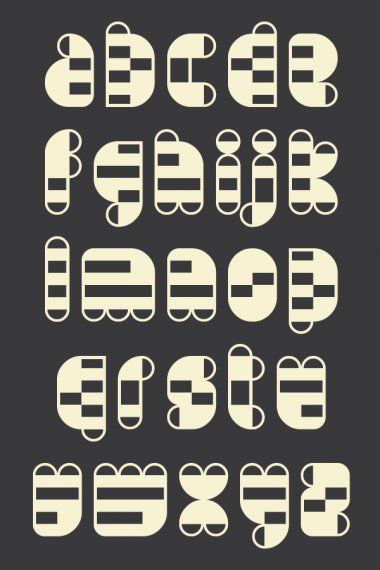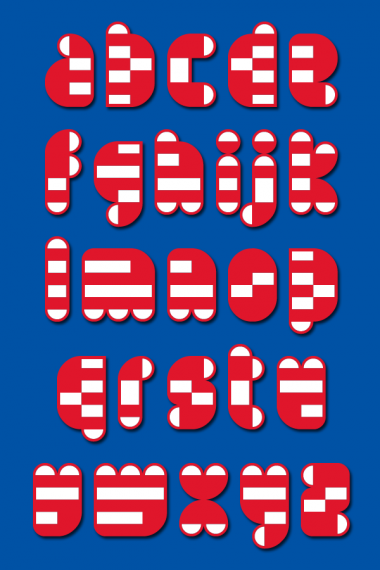
Early Riser
What a fun design :)
I'm with p2pnut ;)
Congratulations! FontStruct Staff have deemed your FontStruction worthy of special mention. “Early Riser” is now a Top Pick.